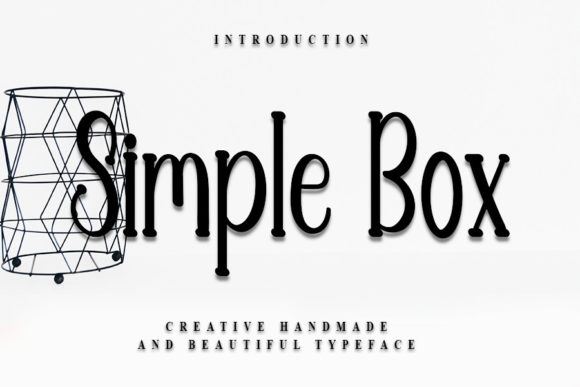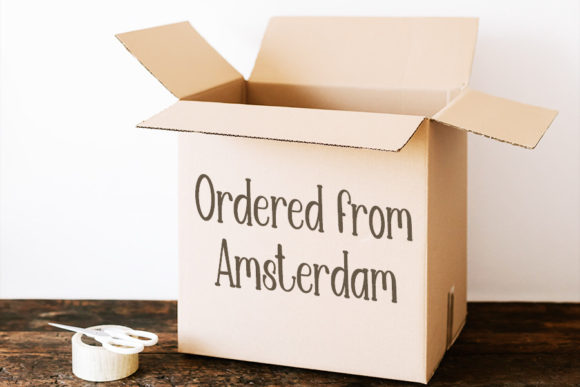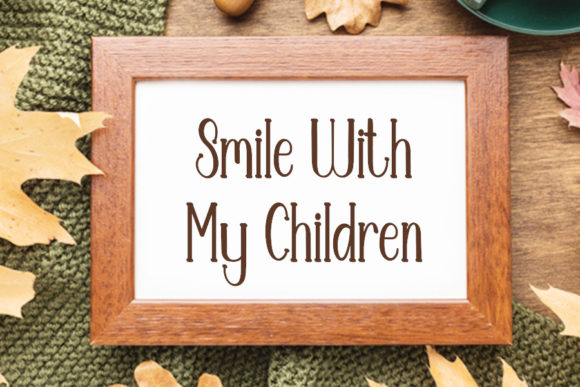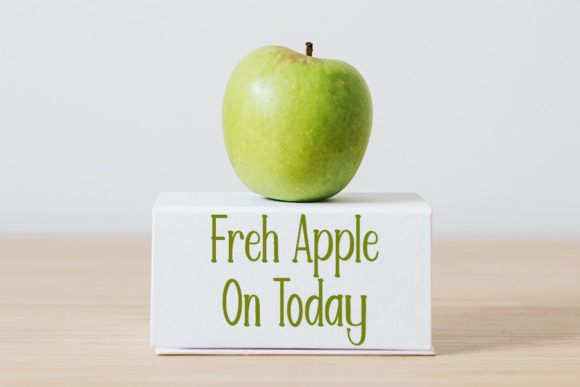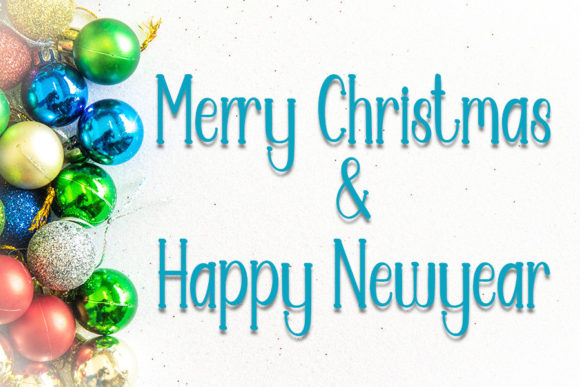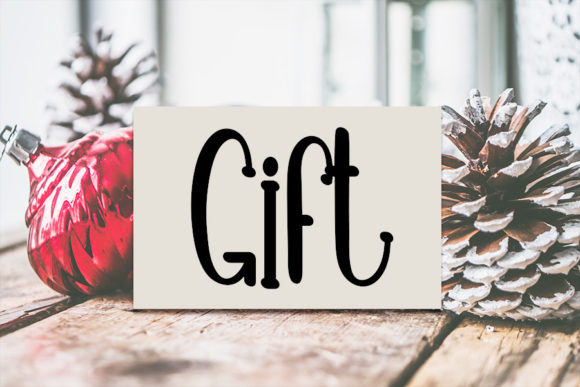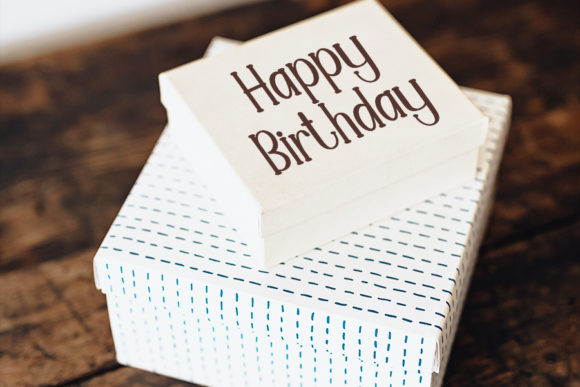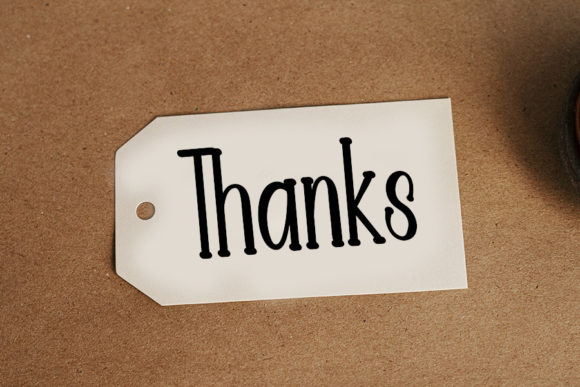
Simple Box Font
About Simple Box Font
**Simple Box Font: Stylish Handwritten Elegance**
Introducing *Simple Box Font*, a stylish handwritten typeface that exudes a contemporary atmosphere and impeccable form. Inspired by timeless classic calligraphy, this font is balanced and varied, crafted to enhance the beauty of your projects. Whether you’re working on logos, branding, invitations, stationery, or various creative endeavors, *Simple Box* adds a touch of elegance to elevate your designs.
The charm of *Simple Box* lies in its stylish handwritten aesthetic. Each stroke is carefully crafted to create a visual experience that is both modern and classic. The font’s contemporary atmosphere makes it a versatile choice for a wide range of design applications.
The balance and variation in *Simple Box* make it suitable for diverse projects, allowing it to adapt seamlessly to different design contexts. Whether you’re aiming for a sleek and modern look or a more classic and timeless feel, this font brings a harmonious blend of elements to your creative work.
As you incorporate *Simple Box* into your projects, you’ll notice how it effortlessly enhances the overall beauty. The font becomes a tool to express sophistication and style, turning your designs into visually appealing creations.
In summary, *Simple Box Font* is more than just a typeface; it’s a statement of stylish handwritten elegance. Let it be the choice that brings a contemporary touch to your logos, branding, invitations, stationery, and various creative projects, enhancing their beauty and making a lasting impression.